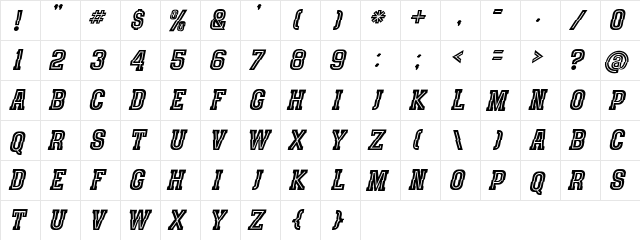
speedhunter line Regular
Design Context for speedhunter line Typeface
speedhunter line is a composed and adaptable typeface that performs quietly and consistently across a wide range of design contexts.